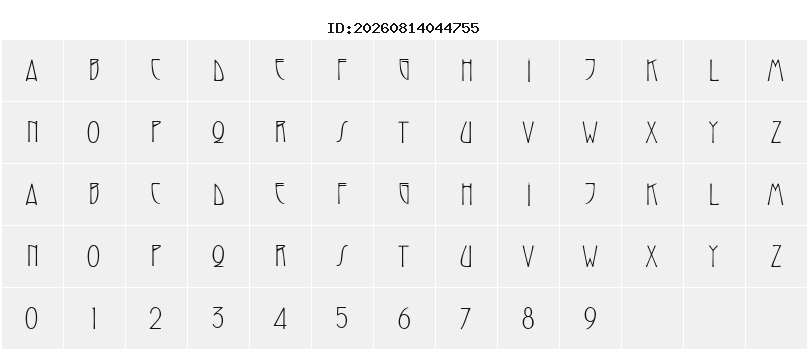
• Font Name: Swaak Centennial MN
• Full Font Name: Swaak Centennial MN
Swaak Centennial MN.ttf is a modern, elegant sans-serif font designed for ultimate readability and visual harmony. Perfect for branding, headlines, web design, and print materials.